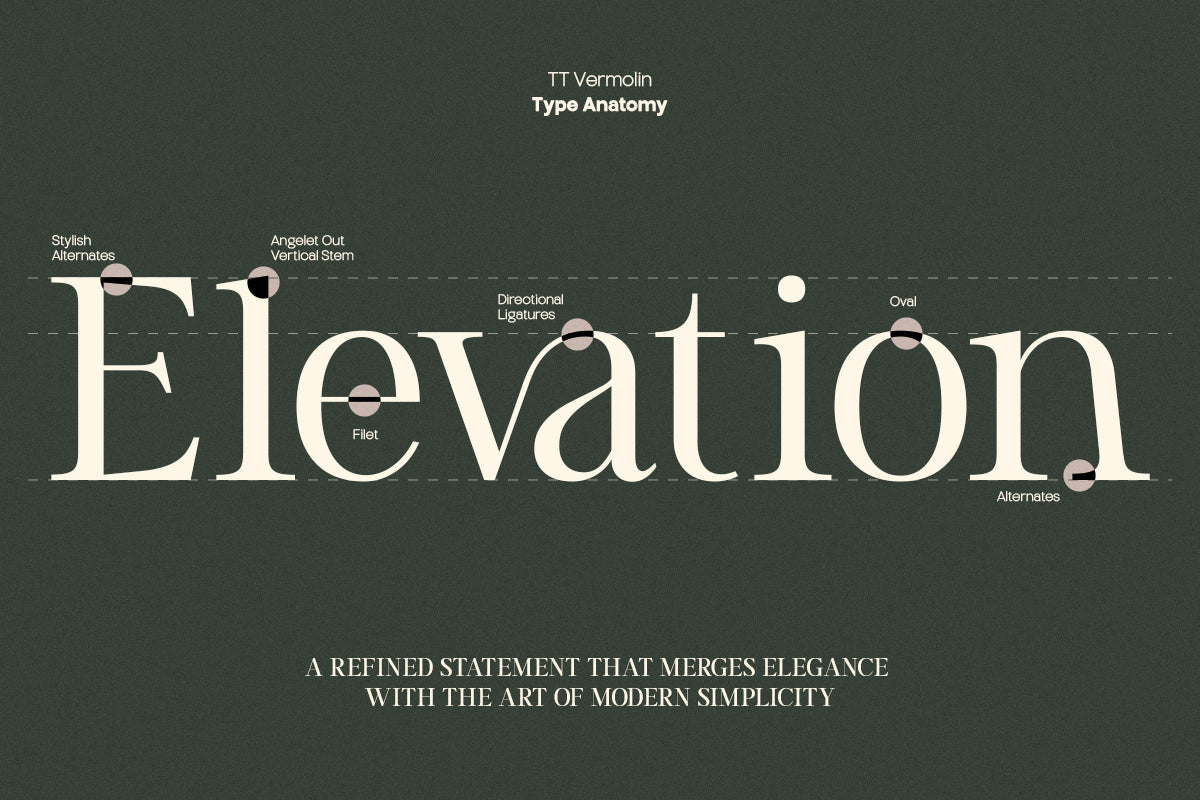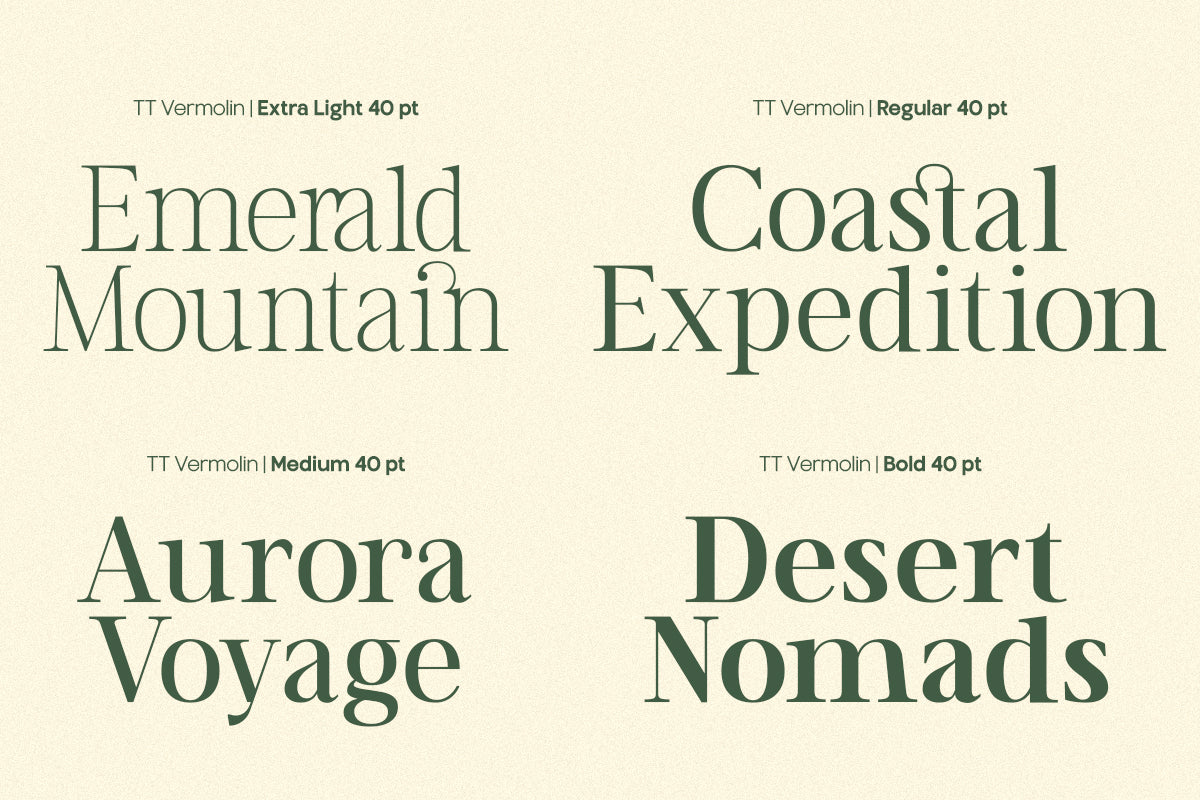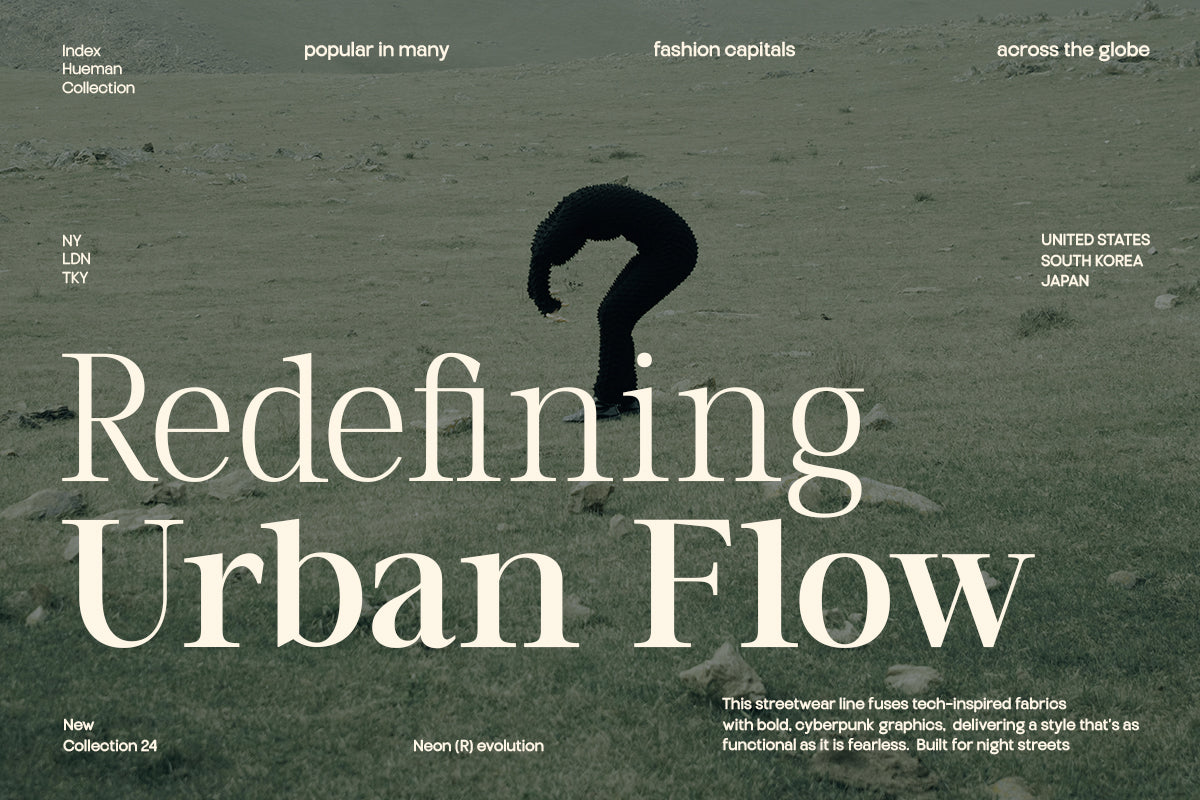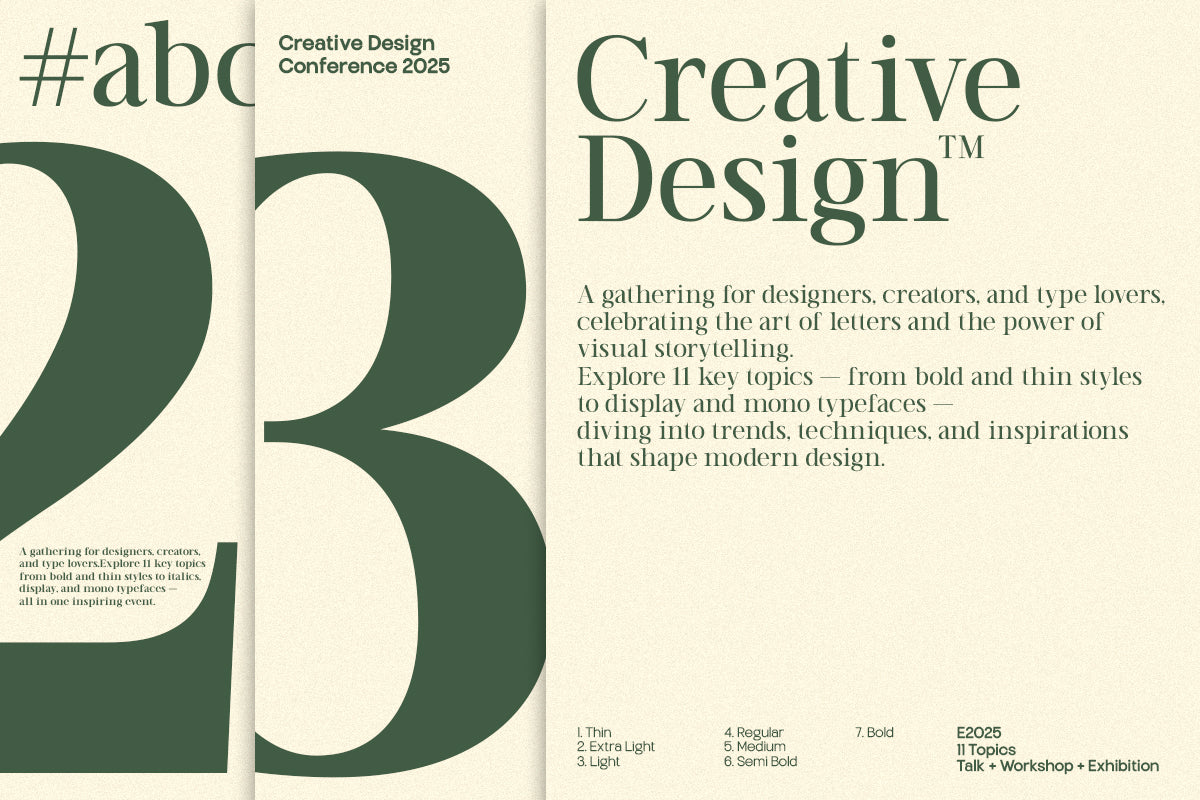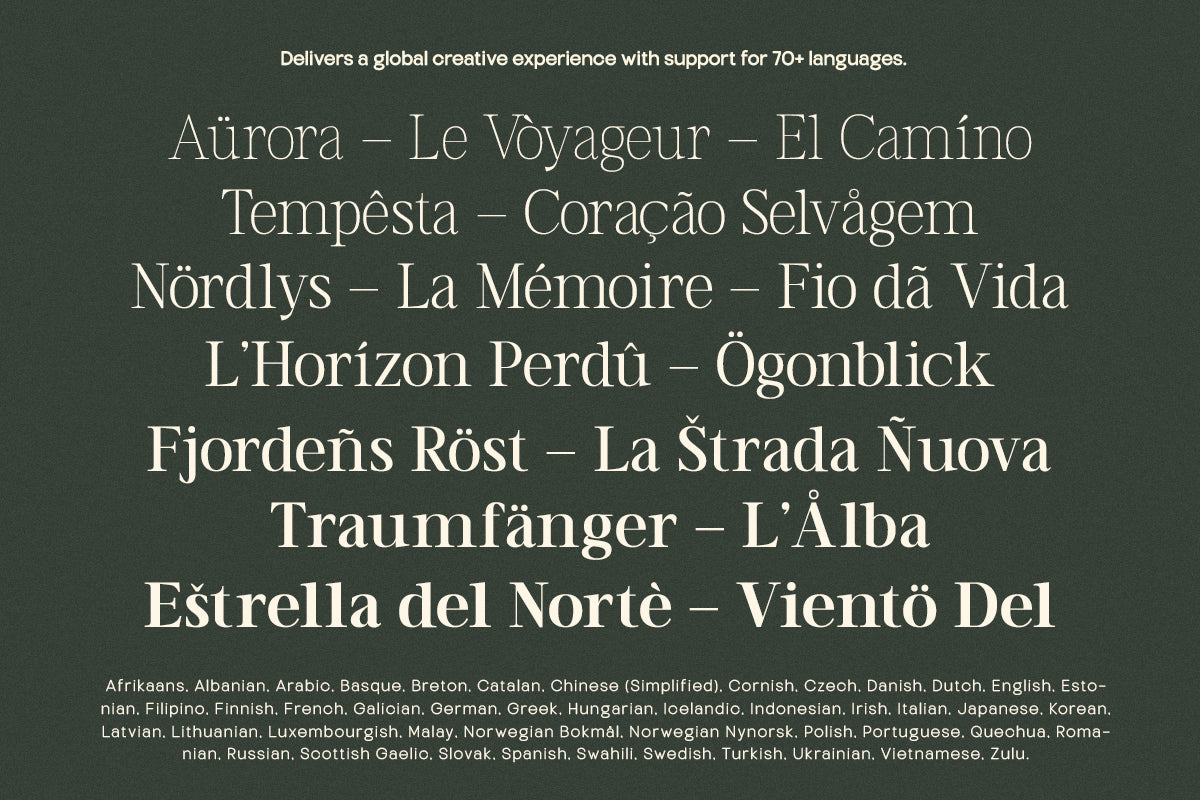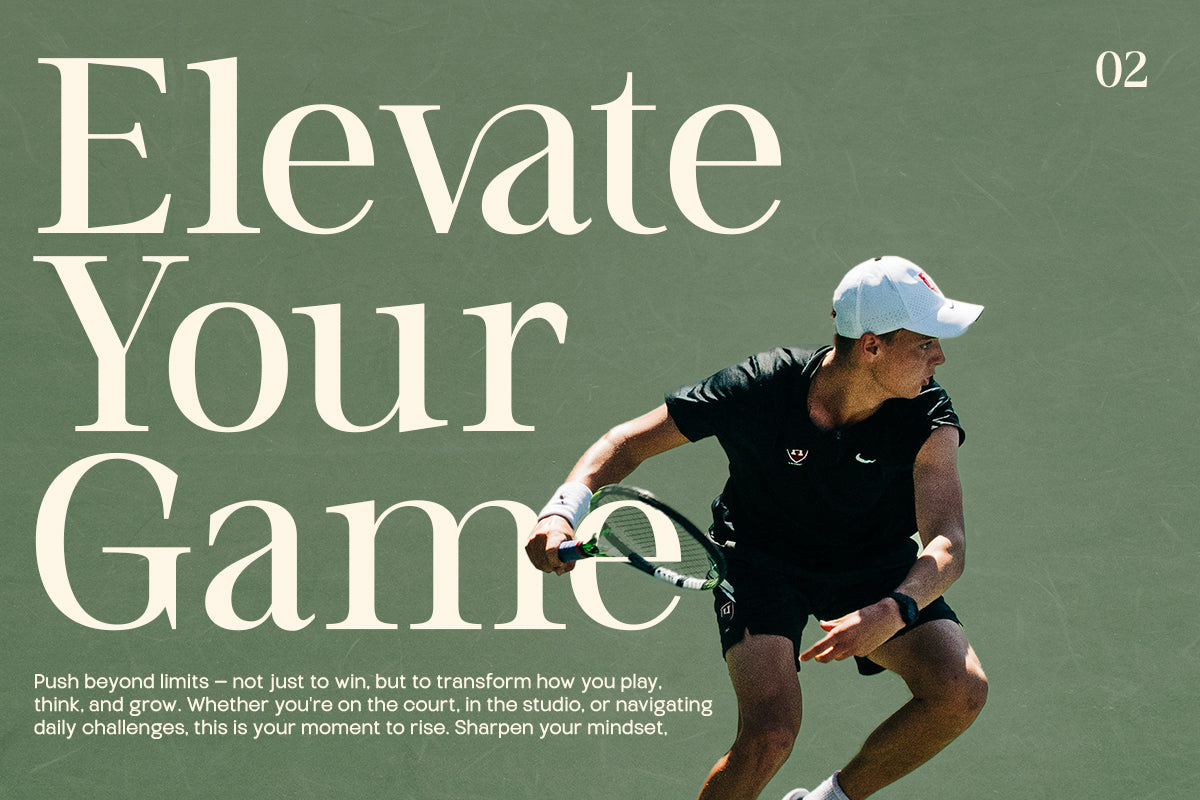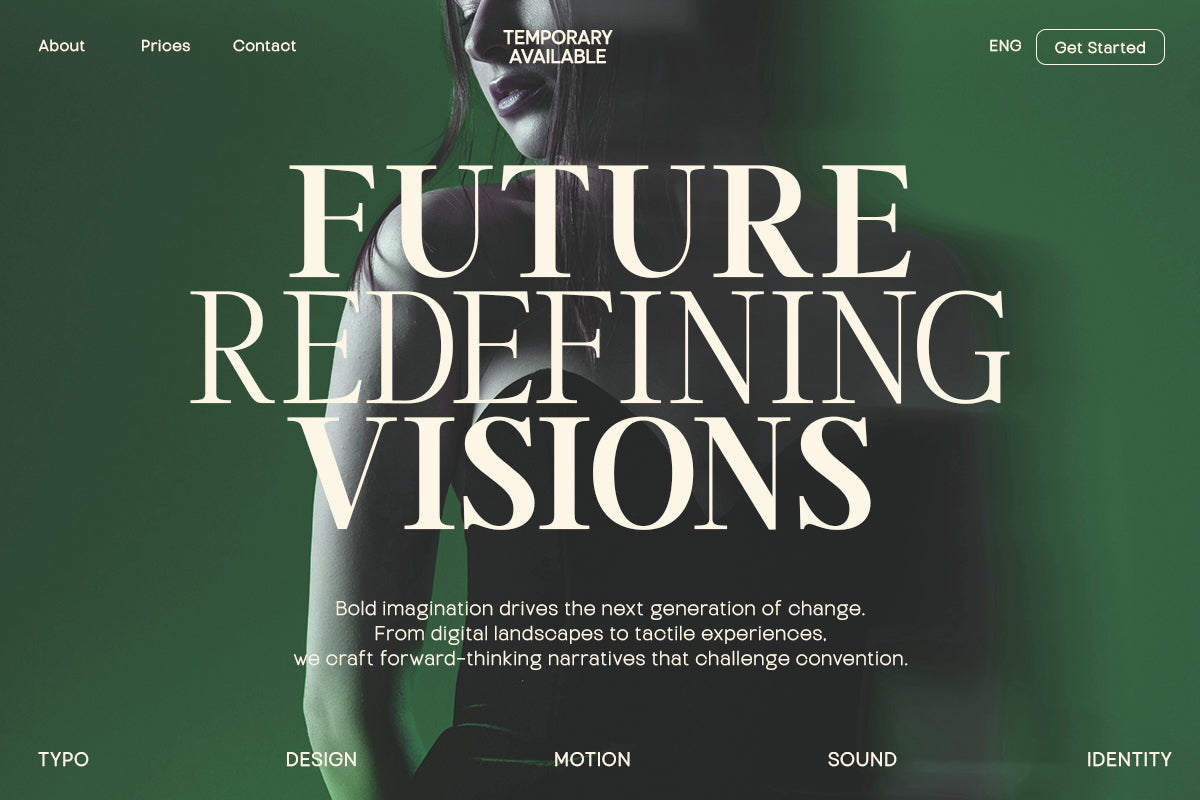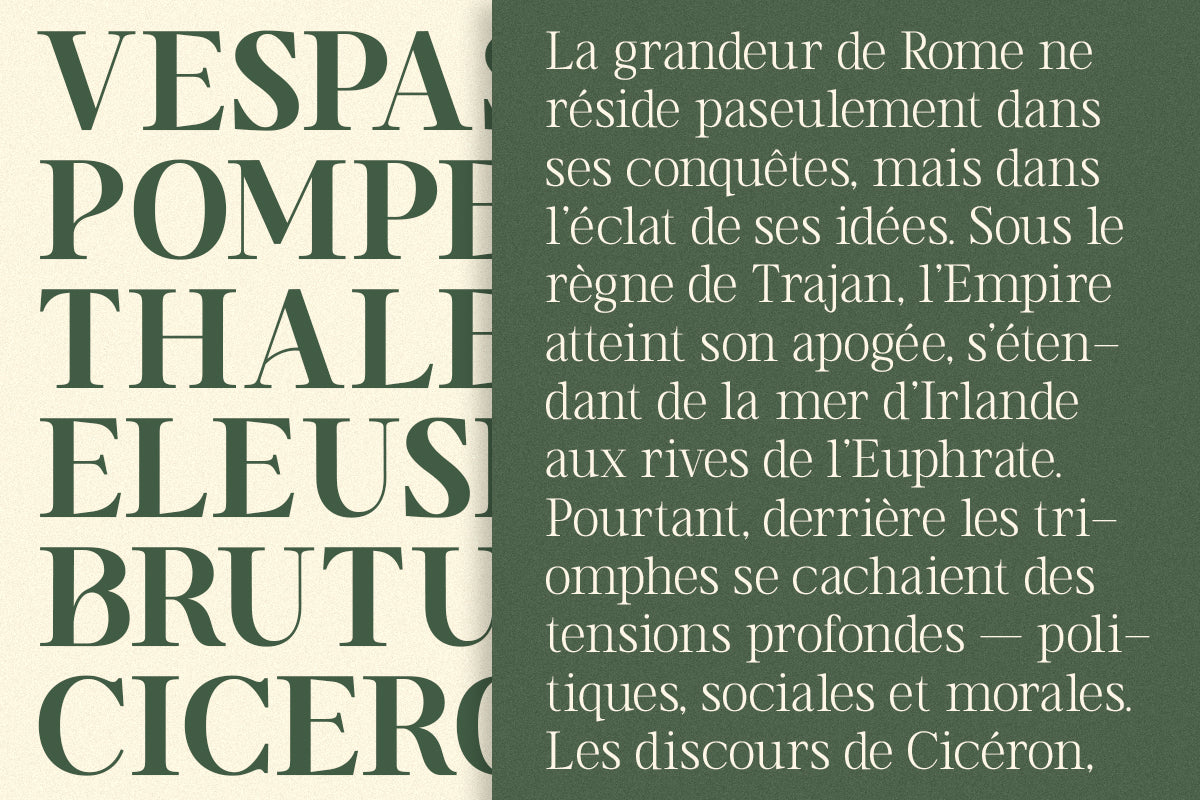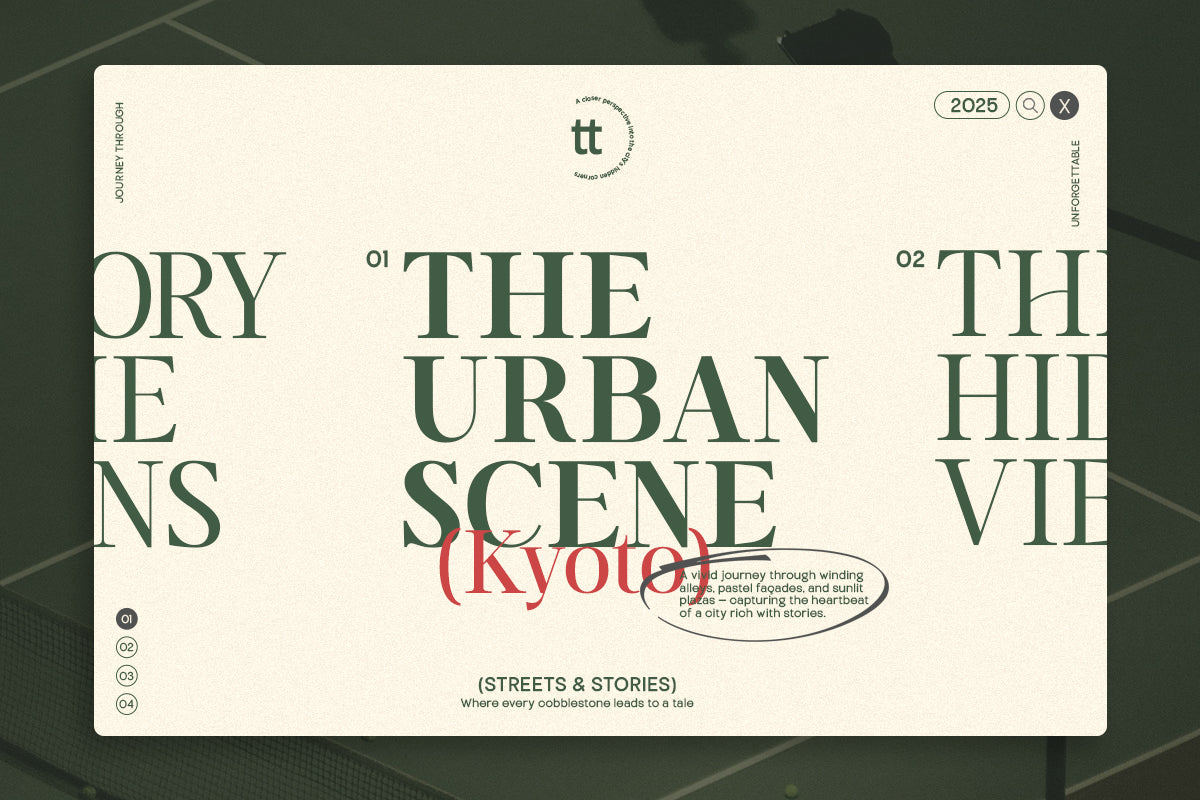
TRT Vermolin — Modern Classy Serif Typeface
TRT Vermolin is a modern serif typeface characterized by sharp contrasts, high vertical stress, and sculptural forms, designed for high readability and impact. With elegant proportions, generous x-height, and slender stems, it is suitable for both print and digital formats, featuring a range of ligatures and alternates.